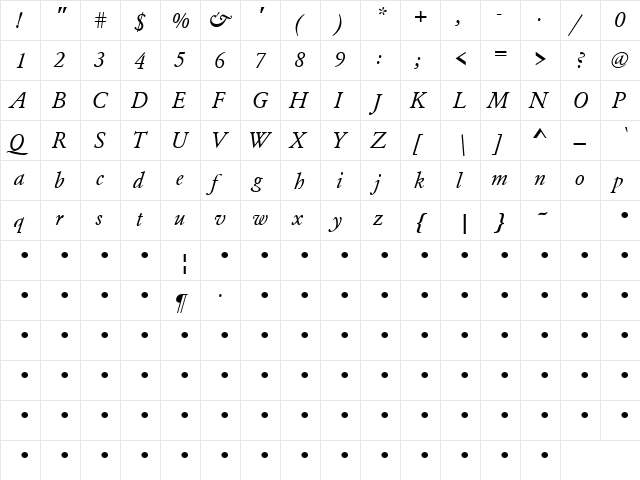
Poles Apart 4 Italic
Design Context for Poles Apart 4 Typeface
Poles Apart 4 offers clean, dependable letterforms without strong stylistic allegiance, making it a practical choice for designers who need flexibility. The slanted form adds forward momentum and visual energy.
Pro Tip: Try Poles Apart 4 for annotation and caption copy alongside an upright companion — the contrast in angle creates a dynamic but ordered typographic system.